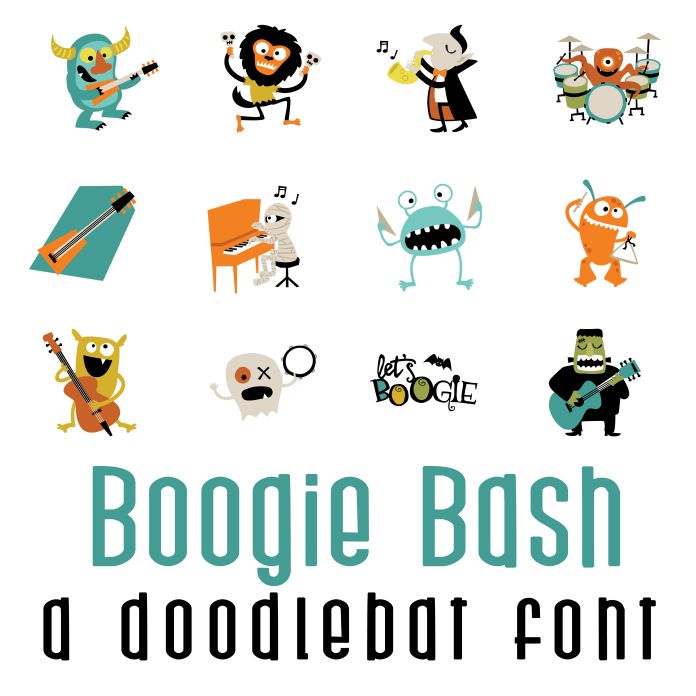
This fun full color font features 31 adorable Halloween characters ready to Boogie. Perfect for cards, crafts, gifts, planner stickers, scrap book pages, decor and more! Glyphs are A-Z, 0-4 for 31 unique glyphs.